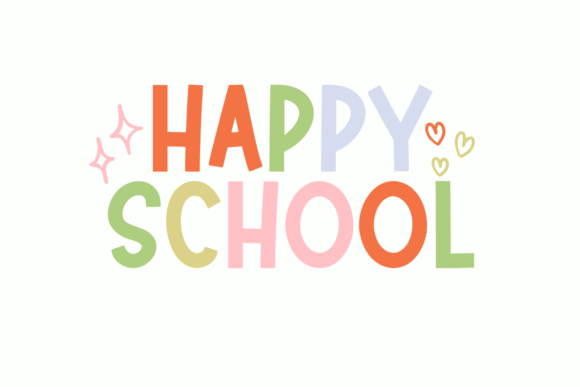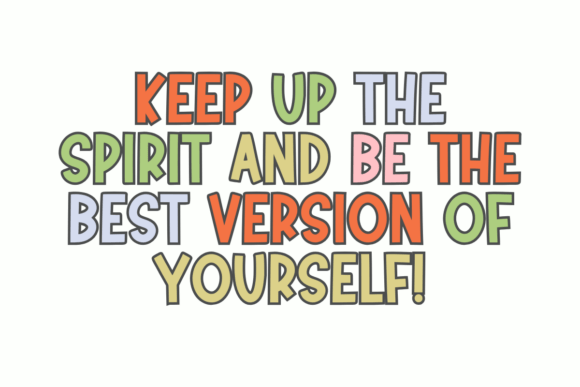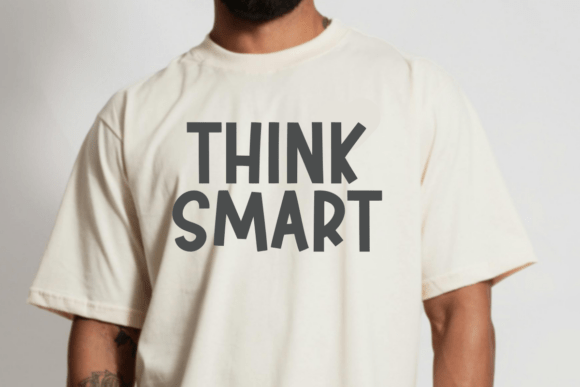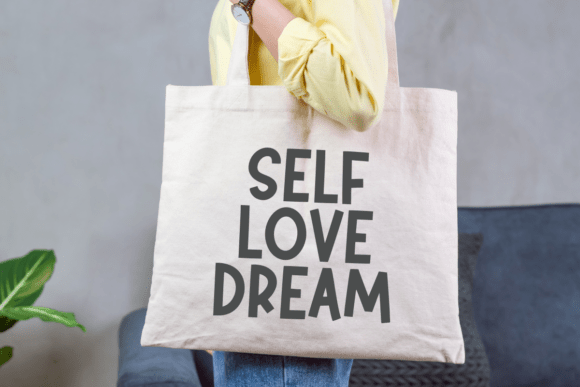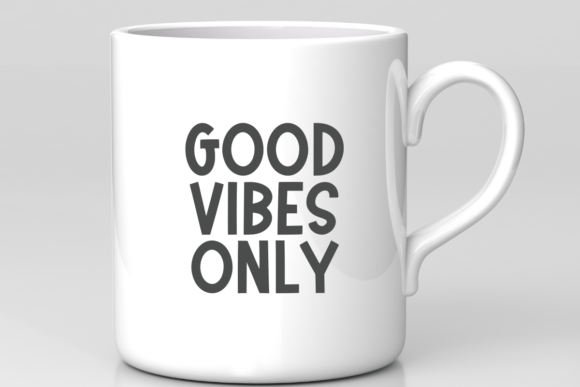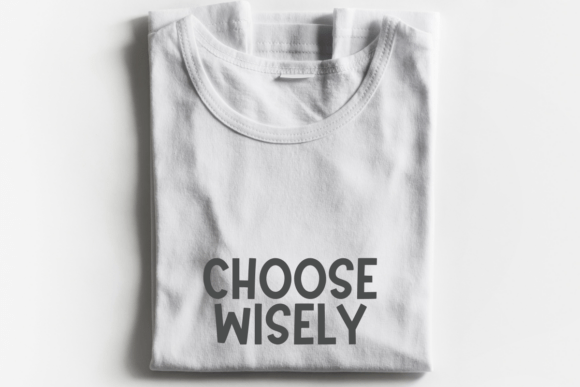
Introduction to Smart Good Font
Introducing Smart Good – a charm-filled, handmade masterpiece of a font, meticulously crafted with an irresistible appeal.
Talented hands have brought to life this adorable typographical wonder, tailor-made for stitching expressions of joy and affection onto the canvas of life Embroider your favorite quotes with a touch of whimsy, or splash a dash of creativity on ubiquitous items like mugs, t-shirts, and tote bags.